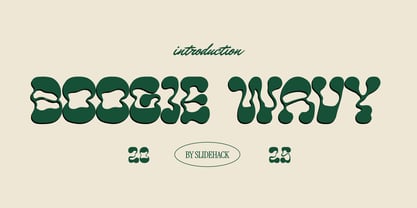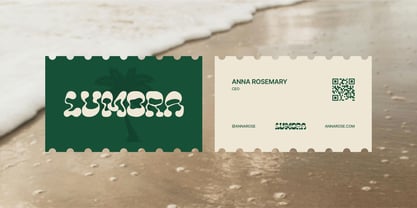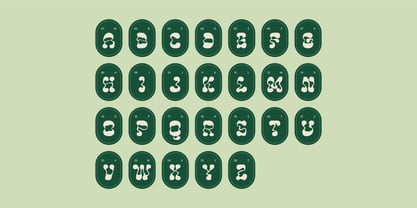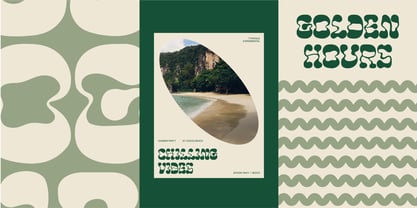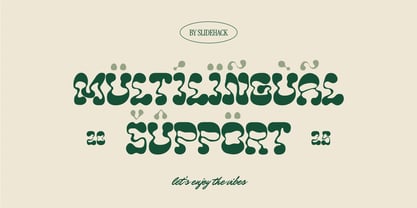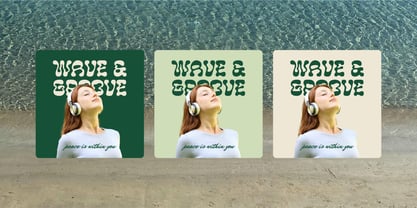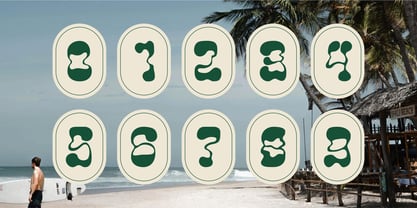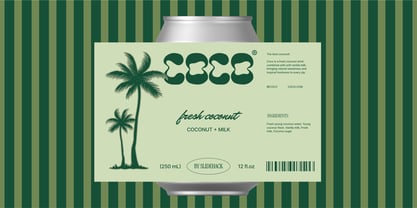
Boogie Wavy
von Slidehack
Die Schriftfamilie Boogie Wavy wurde von Excellent Ritma Florendia entworfen und von Slidehack veröffentlicht. Boogie Wavy enthält 1 Stile. Mehr über diese Familie
Boogie Wavy – Groovy Display Font is a bold, funky, and retro-inspired typeface that brings a vibrant, playful vibe to any project. With its unique wavy style, this font is perfect for posters, branding, packaging, music covers, and social media graphics. Its eye-catching charm makes your designs stand out, ideal for creatives seeking a fun, groovy, and memorable typography choice.
Designer: Excellent Ritma Florendia
Foundry: Slidehack